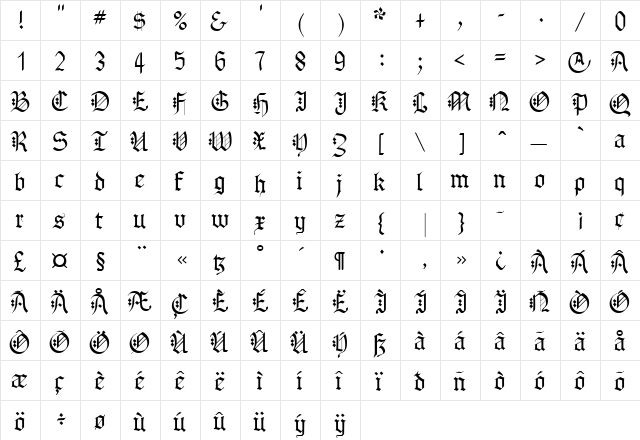
Albert Betenbuch
Design Context for Albert Typeface
Albert is a composed and adaptable typeface that performs quietly and consistently across a wide range of design contexts.